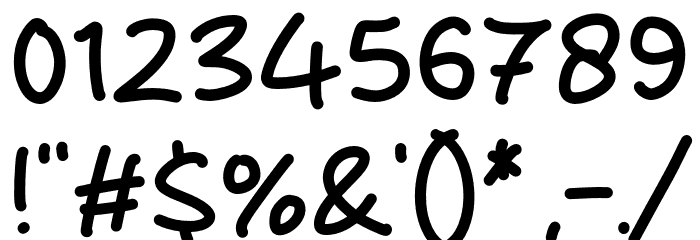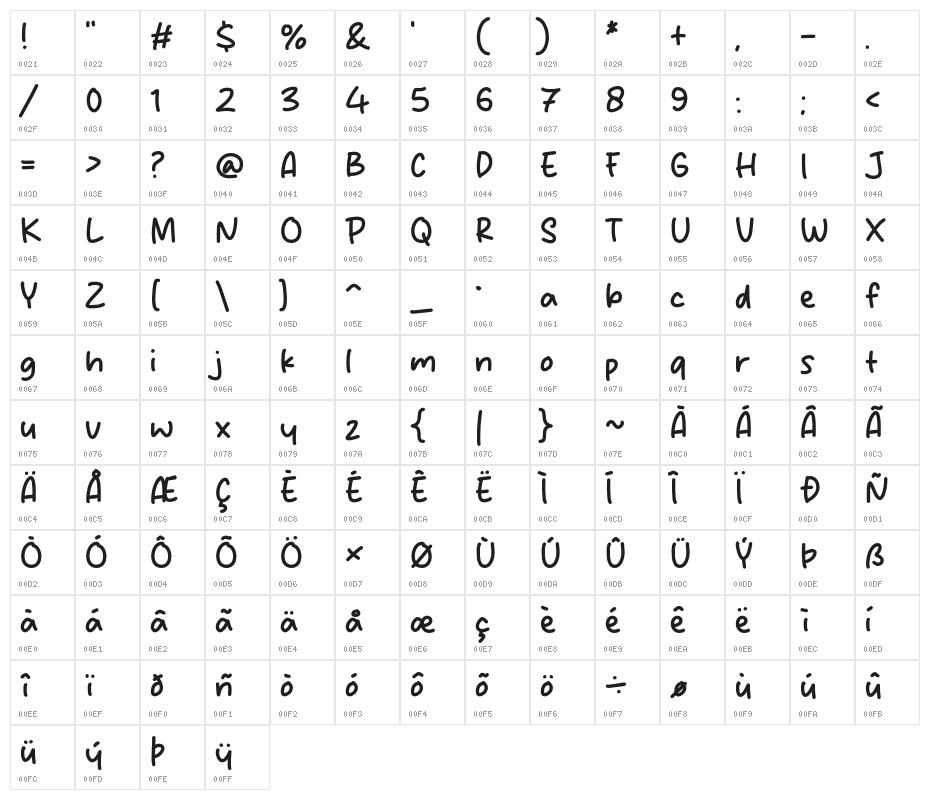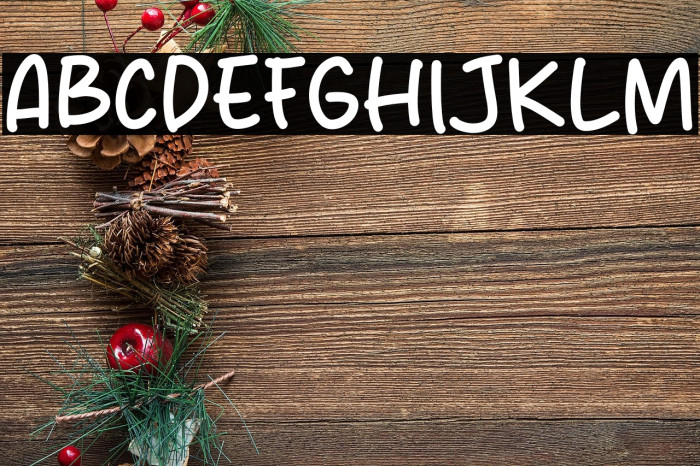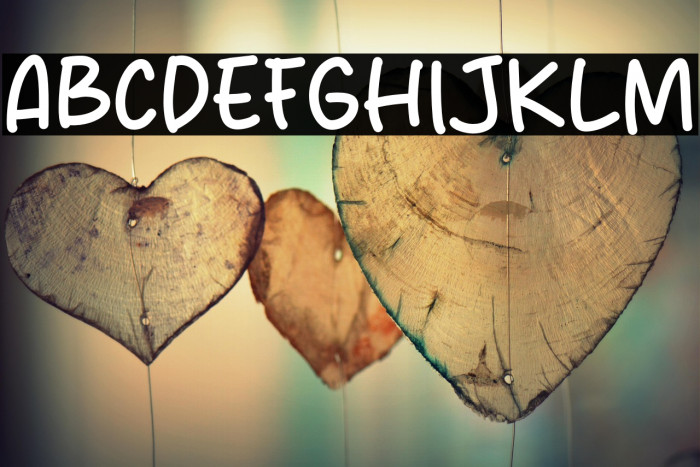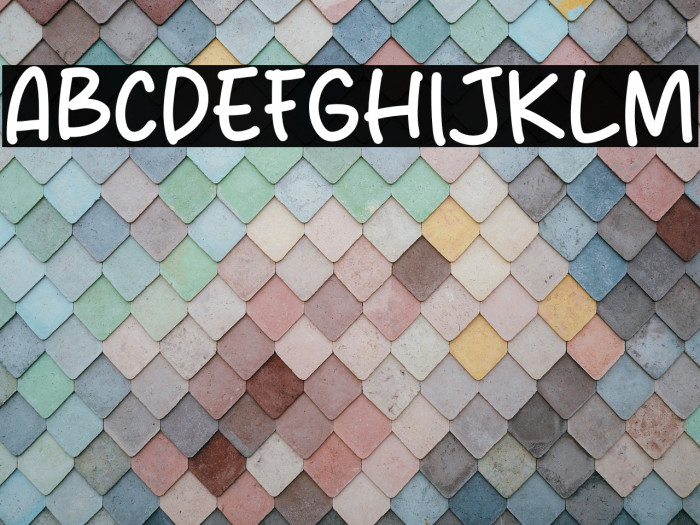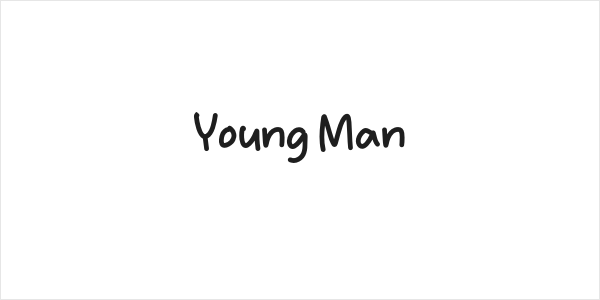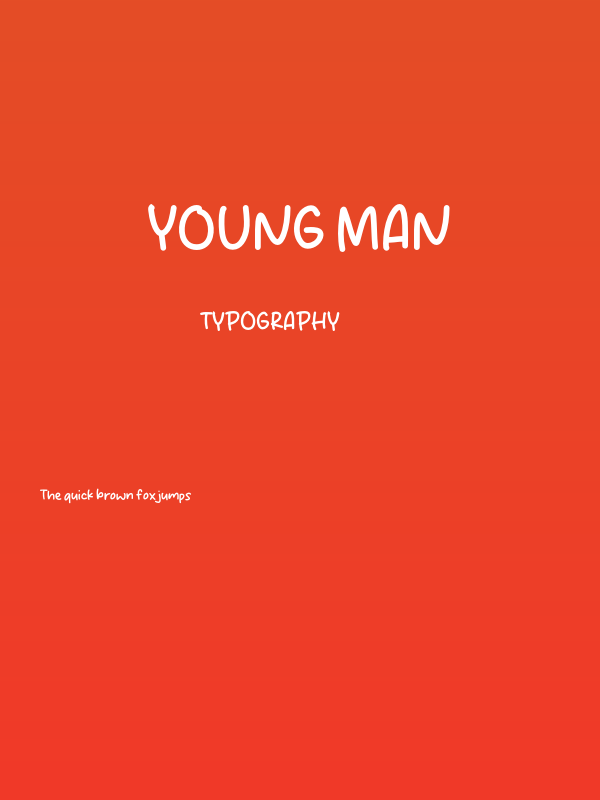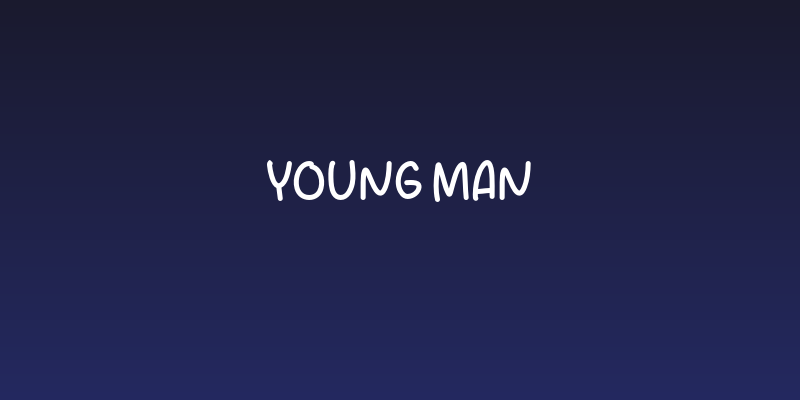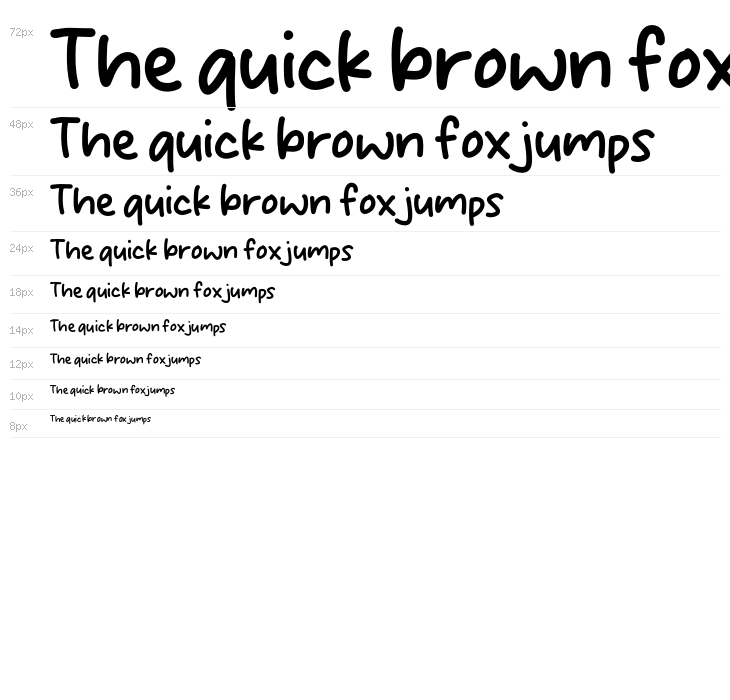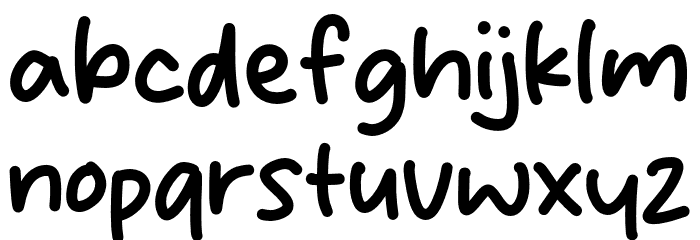
Young Man Font
Young Man Description
This font exudes a playful and casual handwritten style, characterized by its rounded and slightly irregular letterforms. The strokes are consistent in thickness, giving it a uniform appearance while maintaining a lively and informal feel. The letters are well-spaced, ensuring readability, and the overall design is approachable and friendly. This font captures a sense of spontaneity and creativity, making it ideal for projects that require a personal touch. The numerals and special characters are designed to match the playful aesthetic, ensuring a cohesive look across all text elements.
| Use Case | Headlines, Informal text, Creative projects |
| Proposed Projects | Ideal for children's books, greeting cards, informal invitations, and creative branding. |